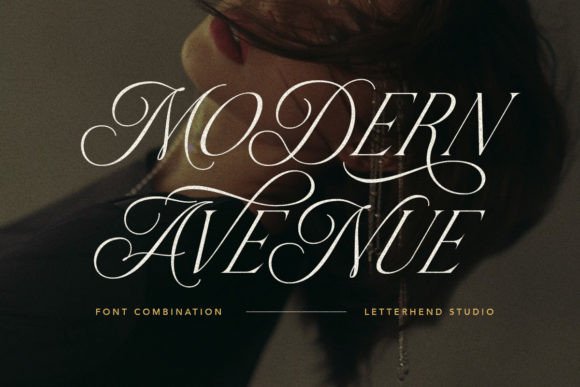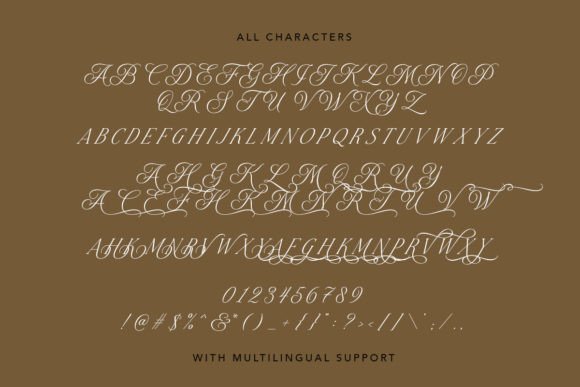
Modern Avenue Font
This exquisite handwritten font exudes elegance and refinement. Its intricate, graceful details and refined letterforms convey a sense of luxury and sophistication, while its clean lines and legibility make it perfect for high-end branding, packaging, and other premium design applications. Ideal for adding a touch of timeless sophistication to any project. It is also PUA encoded which means you can access all of the glyphs and swashes with ease!